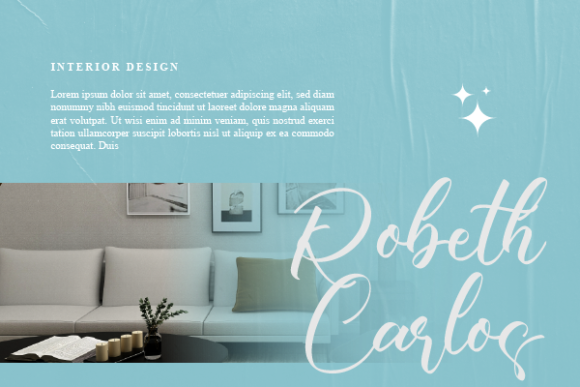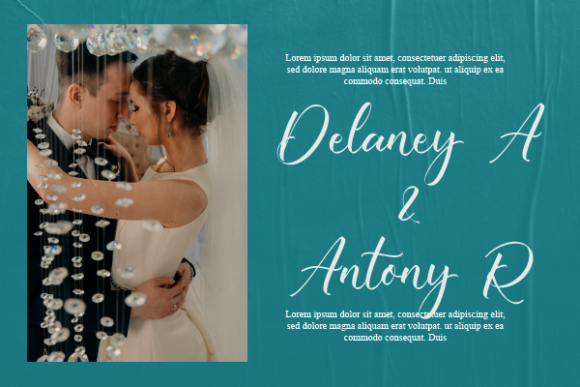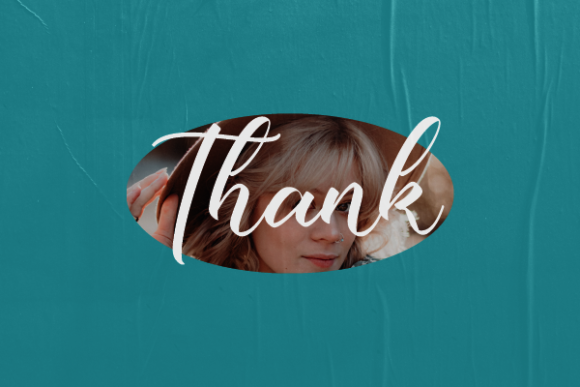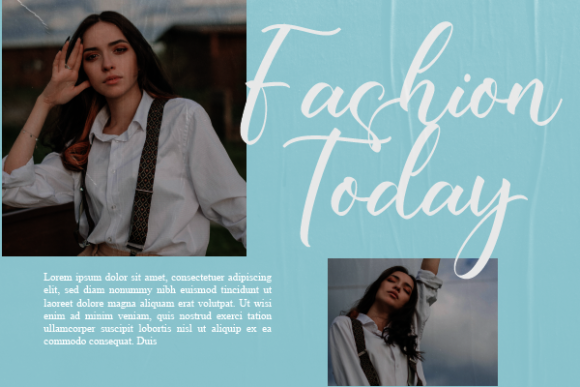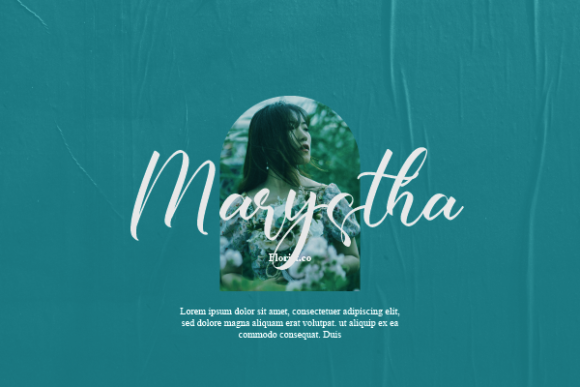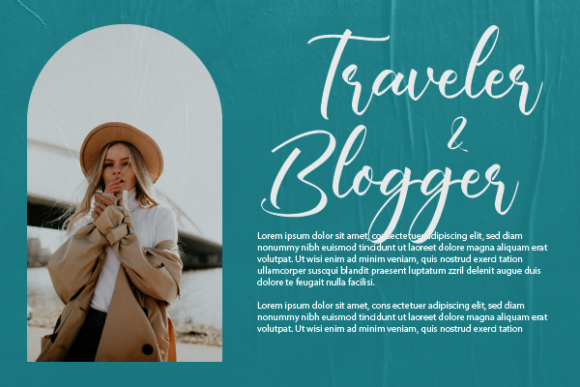
About Simpson Font
Simpson is a distinct and graceful script font. Fall for its ravishing style and use it to create gorgeous wedding invitations, beautiful stationary art, eye-catching social media posts, and much more!